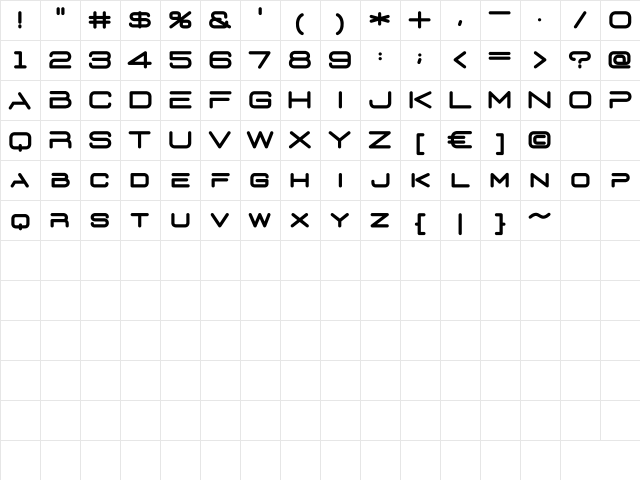
D3 Euronism Bold Regular
Design Context for D3 Euronism Bold
D3 Euronism Bold is a composed and adaptable typeface that performs quietly and consistently across a wide range of design contexts. Its bold stroke weight gives it real presence on the page.